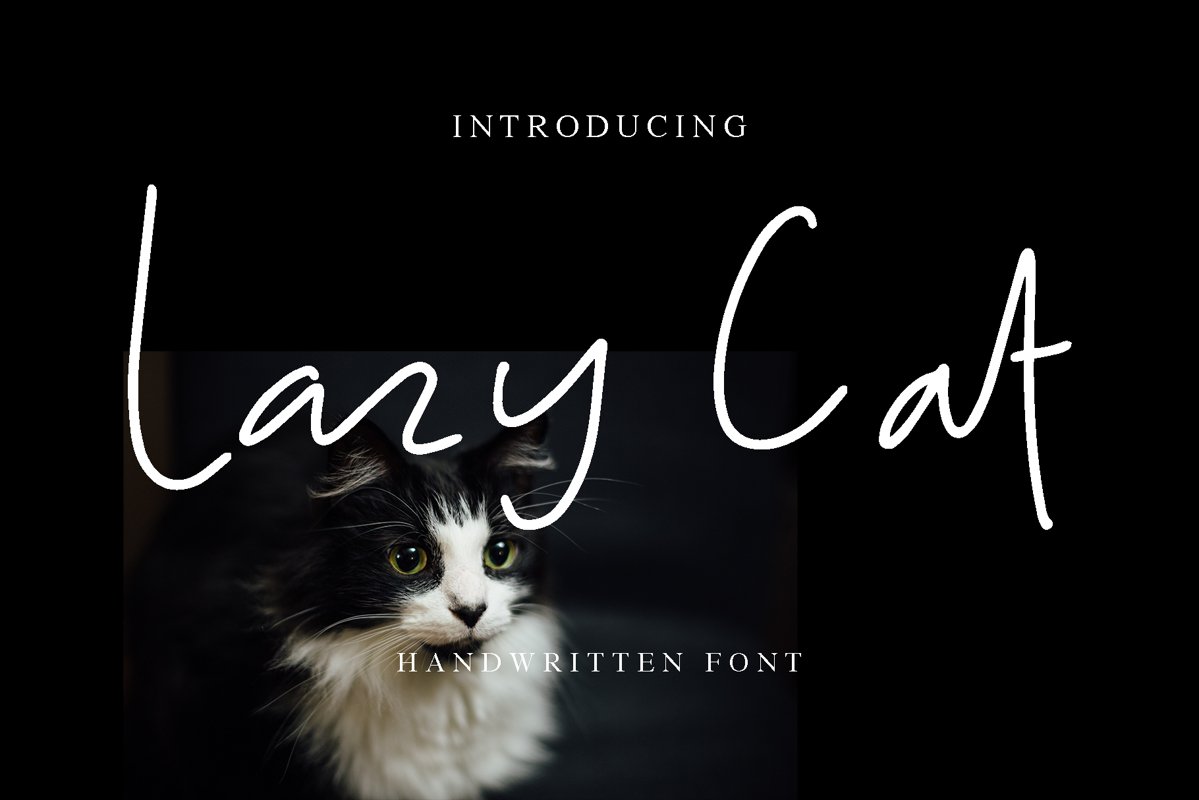
Lazy Cat
**Lazy Cat Font** is a handwritten script font with a monoline and natural style, this font is great for your next creative projects such as watermark on photography, quotes, album cover, logo, business card, and many other design project.
**Lazy Cat** comes with 100 special ligature to make this font naturaly if you type, also comes with uppercase letters, lowercase letters, numbers and punctuation